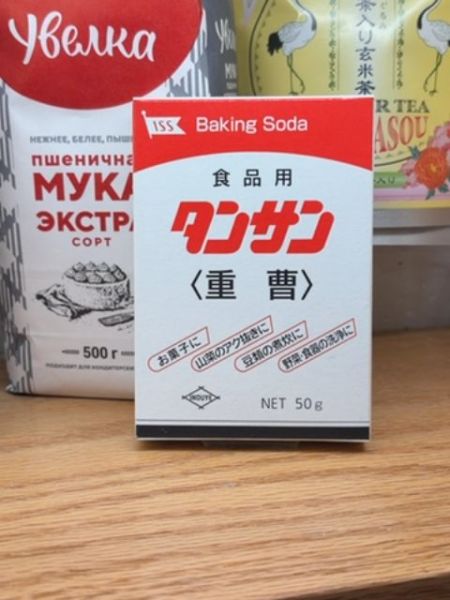
TANSAN
A baking soda used for cooking, cleaning, and other household purposes.
Country of Origin
Japan
Typography
The typography features bold, sans-serif Japanese characters in red for the product name, conveying a sense of urgency and modernity. The use of contrasting colors helps in making the text stand out, while smaller black text provides additional product details in a more traditional serif style.
Packaging
The packaging is a compact box with a minimalist design featuring red and black text on a white background. It has clear, straightforward labeling and small icons indicating its uses.